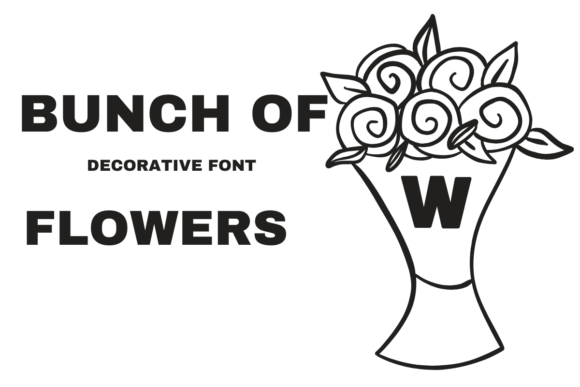
The Bunch of Flowers Font: A Delicate Touch for Your Designs
I’ll never forget the time I was working on a wedding invitation project, and my client asked for a font that would add a touch of elegance and whimsy to the design. I scoured the internet, tried out countless fonts, but nothing seemed quite right. That was until I stumbled upon the Bunch of Flowers font. It’s been a game-changer for me ever since, and I’m excited to share it with you!
What is Bunch of Flowers Font?
Bunch of Flowers is a lovely decorative dingbat font that brings floral elegance into your designs. Each letter or symbol features unique flower arrangements, bouquets, or floral-inspired shapes that can be used as standalone elements or as part of a creative layout. It’s perfect for wedding invitations, greeting cards, botanical prints, packaging, or any project where you want to add a natural, delicate touch.
So, what do I love about Bunch of Flowers? Here are a few things:
- ✨ Unique and varied floral designs for each letter and symbol
- ✅ Easy to use – works like a regular font, just type a letter and a floral graphic appears!
- 💐 Perfect for adding a touch of elegance and whimsy to your designs
- 🌼 Works well for a variety of projects, from wedding invitations to packaging
And, like any font, it’s not without its quirks. Here are a few things to keep in mind:
- 🤔 Some letters and symbols may not be immediately recognizable due to the unique floral designs
- ⚠️ May not work well for body text or long blocks of text due to the decorative nature of the font
Exploring OpenType Features
Bunch of Flowers font comes with a range of OpenType features that allow you to customize your design. Here are a few things you can do:
- Access glyphs and stylistic alternates to add more variety to your design
- Experiment with different ligatures and swashes to add a touch of elegance
- Use the font’s built-in kerning and tracking features to adjust the spacing between letters
The Bunch of Flowers font was designed with the intention of bringing a touch of elegance and whimsy to your designs. The designer, a lover of flowers and botany, wanted to create a font that would allow designers to add a delicate touch to their work. With its unique floral designs and easy-to-use interface, Bunch of Flowers is the perfect font for anyone looking to add a touch of elegance to their designs.
| Font Name | Bunch of Flowers Font |
| Author | Suphitchaya |
| What type of projects is Bunch of Flowers best suited for? | Bunch of Flowers is perfect for wedding invitations, greeting cards, botanical prints, packaging, or any project where you want to add a natural, delicate touch. |
| Is Bunch of Flowers easy to use? | Yes, Bunch of Flowers is easy to use and works like a regular font. Just type a letter and a floral graphic appears! |
| Can I customize the Bunch of Flowers font? | Yes, Bunch of Flowers comes with a range of OpenType features that allow you to customize your design. You can access glyphs and stylistic alternates, experiment with different ligatures and swashes, and adjust the spacing between letters. |